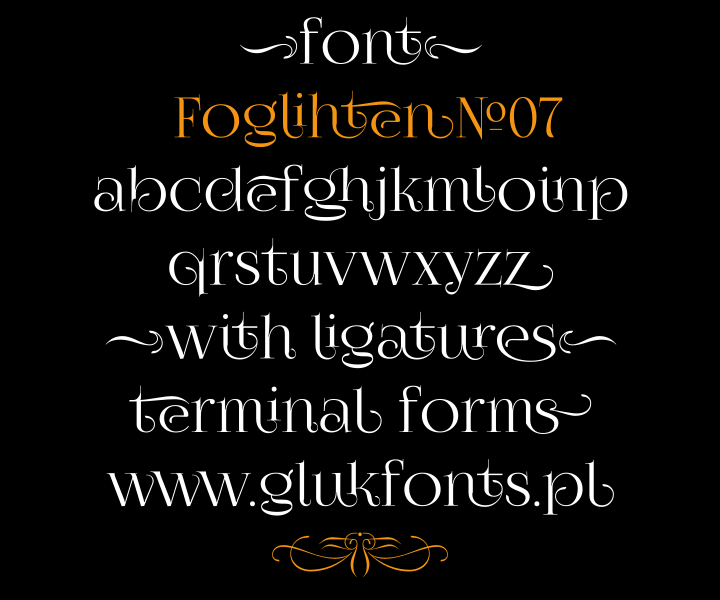
Note by gluk | |
ver.0.841 with new initial forms, and new ligatures. And with additional new font FoglihtenNo07calt - version with initial and terminal alternates as default (contextual alternates), and alternate "r" (from stylisticSet02). |